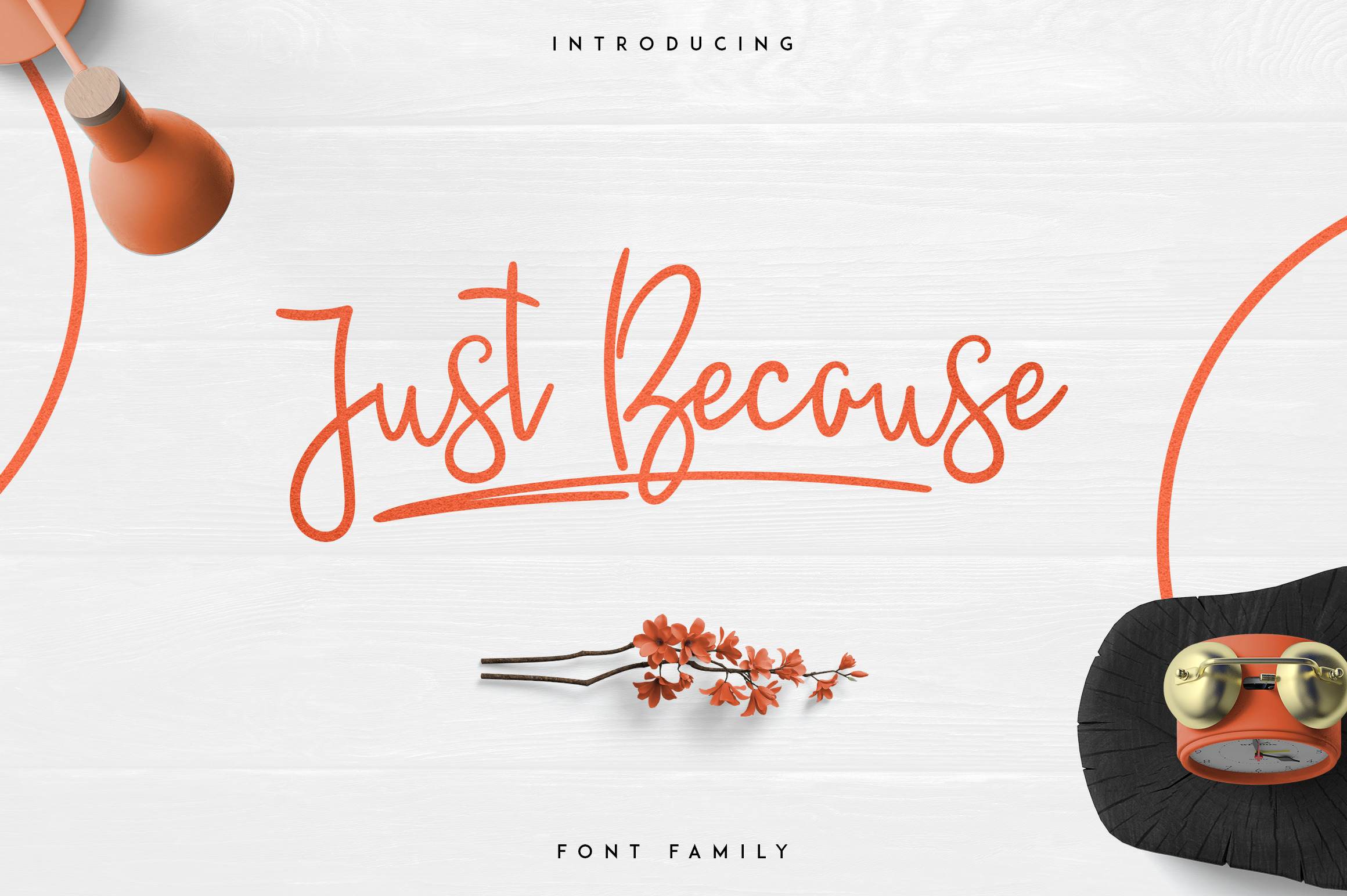
JustBecause is clean, hand drawn typeface with 5 fonts, swashes, photoshop styles and multilingual support. It's a very versatile font that works great in large and small sizes.
JustBecause is perfect for branding projects, home-ware designs, product packaging, magazine headers - or simply as a stylish text overlay to any background image.
- Uppercase,lowercase,numeral,punctuation & Symbol
- Light
- Bold
- ExtraBold
- Black